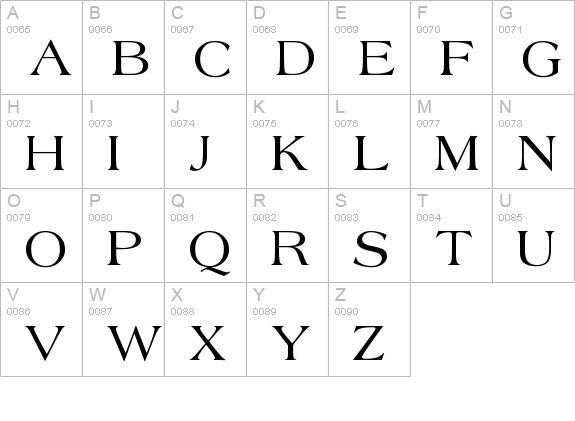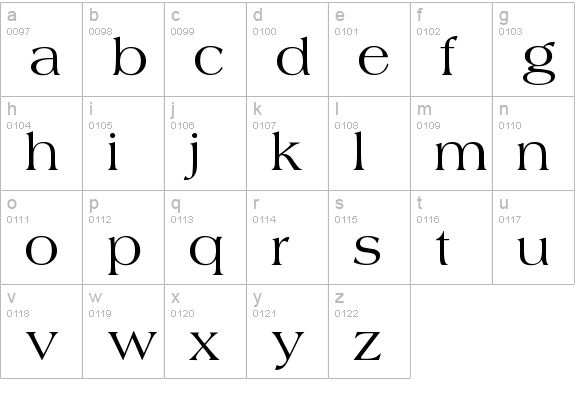
Merida Font Details
Merida font is a timeless and elegant typeface that exudes sophistication and class. With its sleek lines and delicate curves, Merida font brings a touch of refinement to any design project. This versatile font is perfect for creating stylish logos, branding materials, invitations, and more. What's even better is that Merida font is completely free to download at FontsMarket.com. You can enhance your designs with this exquisite font without any cost, making it a valuable addition to your font collection. Don't miss out on the opportunity to elevate your designs with Merida font - download it today and let your creativity shine!